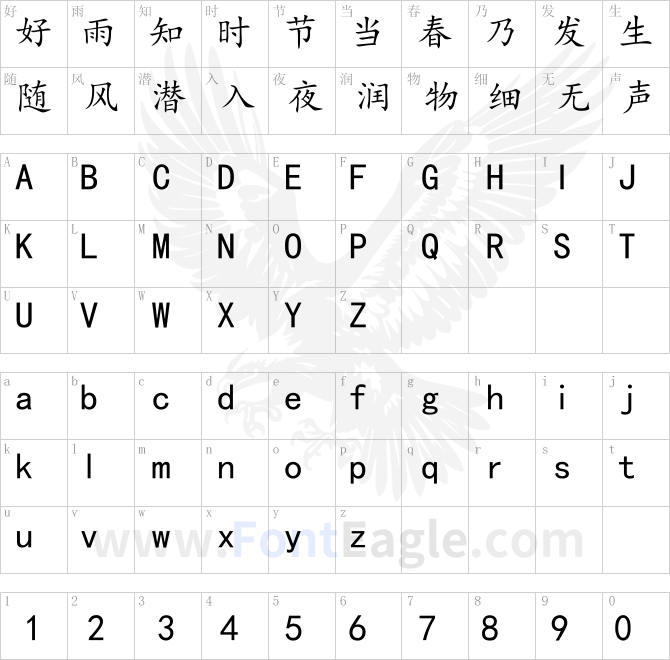
- Font name:楷体
KaiTi is a great font, widely used in graphic design, single-page menu design, poster design and other fields, and is deeply loved by designers.KaiTi download.